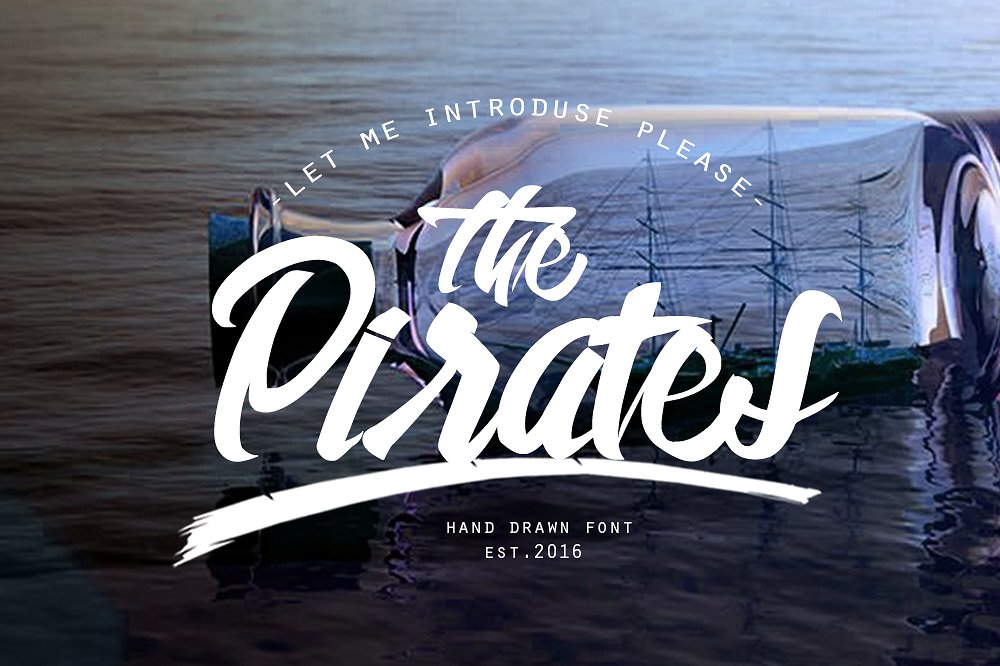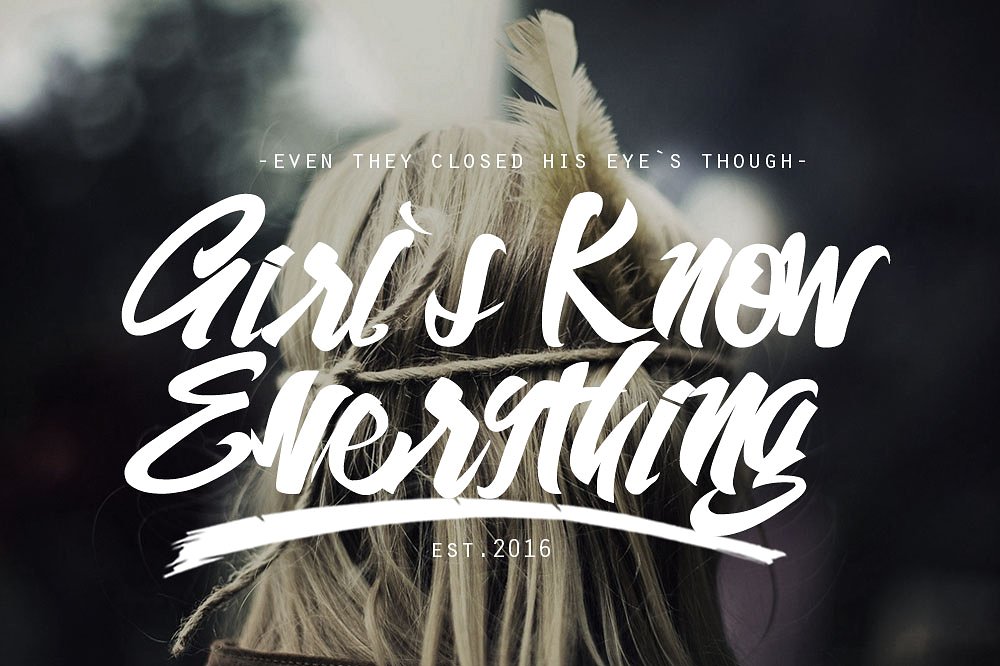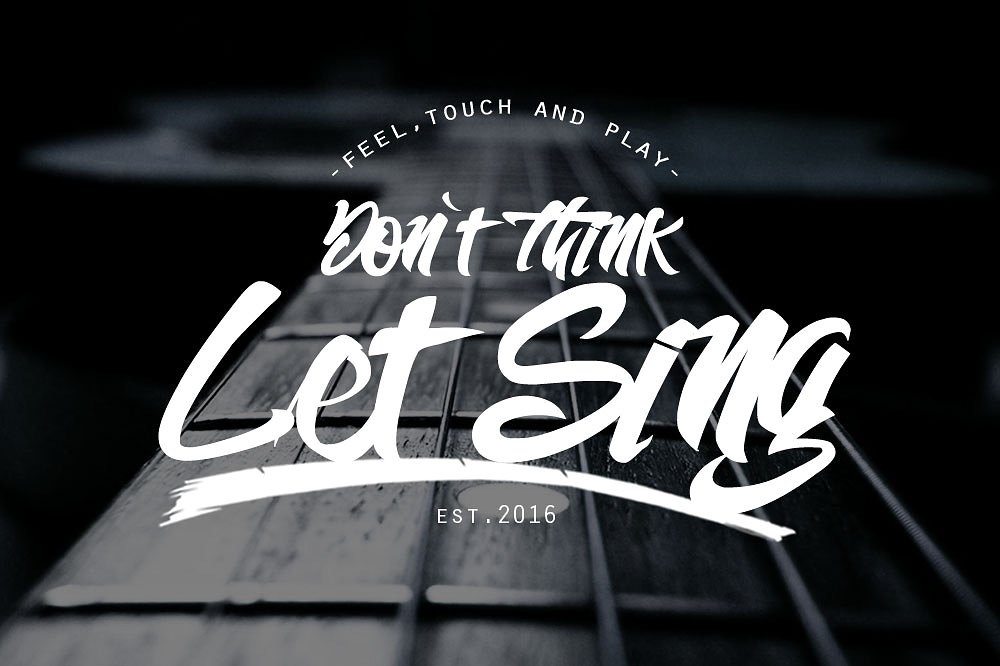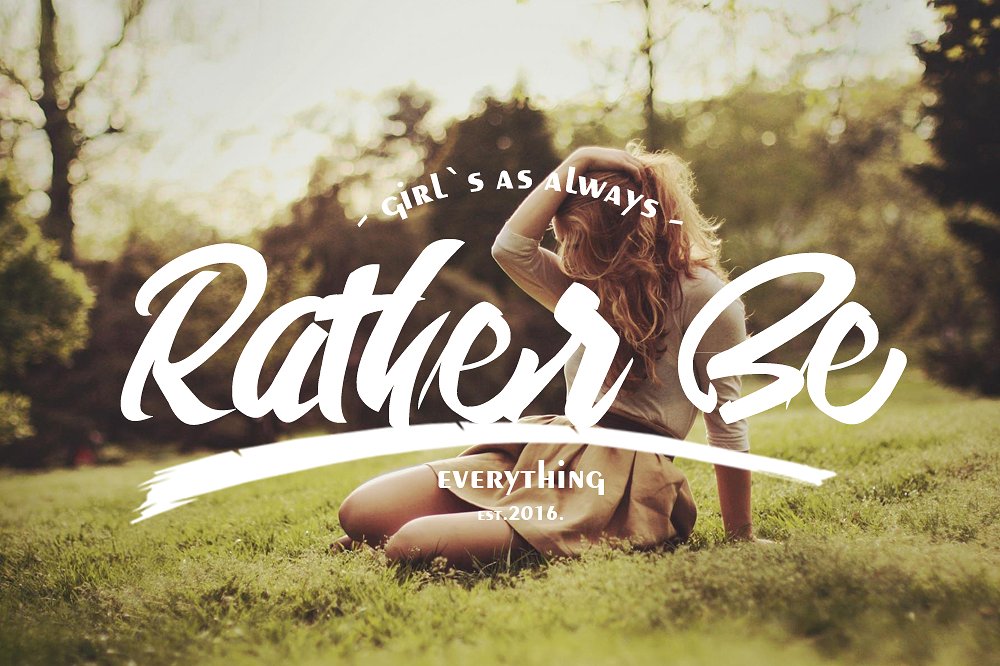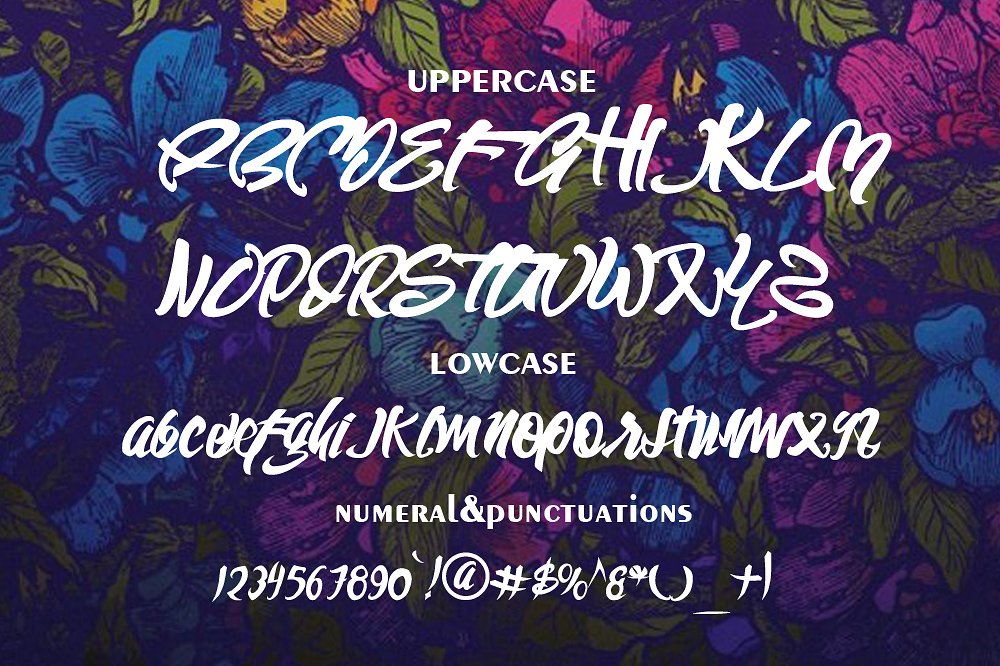
Wild Style
Wild Style Script Font
The pirates is a set of 2 hand-made wild style script fonts,designed to combine perfectly and allow you to create stunning hand-lettering quickly and easily. Also included is a set of international language bonus, ideal for giving your text that final touch of finesse!